I am starting to use Chrome more and more now as it seems to run alot quicker than Safari (on Yosemite beta) but I can't seem to get the same look as I do with Safari on some forums.
The font looks abit blurry and not as clear compared to Safari any ideas?
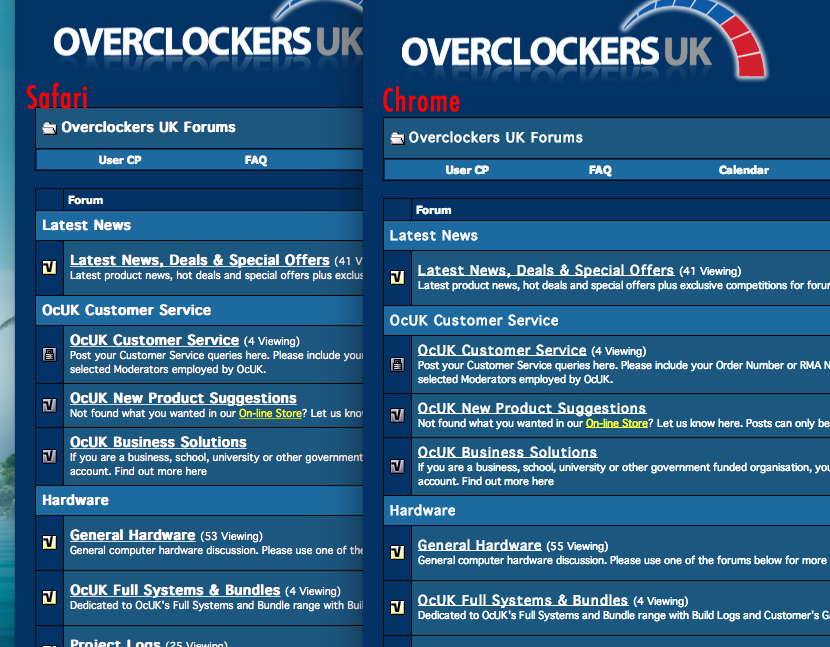
Chrome's font rendering has been sketchy since... well, for as long as I can remember. I think there's a couple of solutions out there (hacks/fixes). I remember I just gave up and returned to Safari.
Looks like what's happening there is that it's faking the bold font on those titles. Basically the font file the website is relying on doesn't have a bold variant, but the browser sees that it is supposed to be bold and mangles it like this to thicken it. Not Yosemite-related, and every browser does this somewhat.